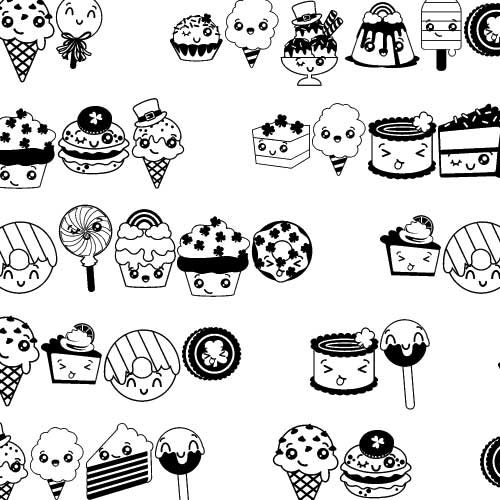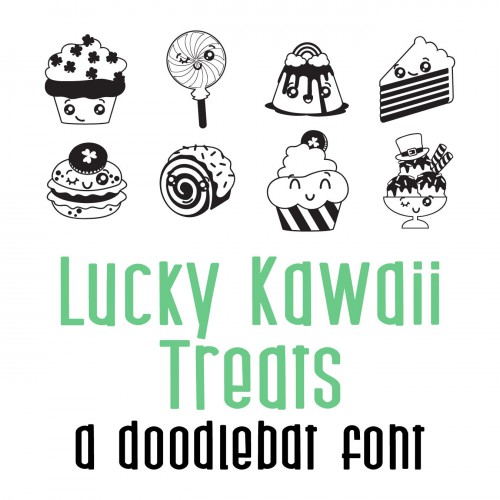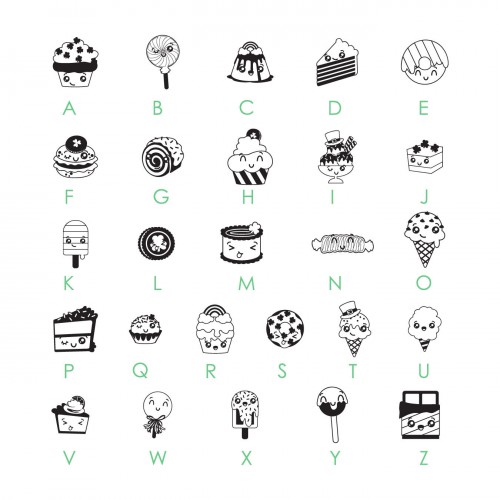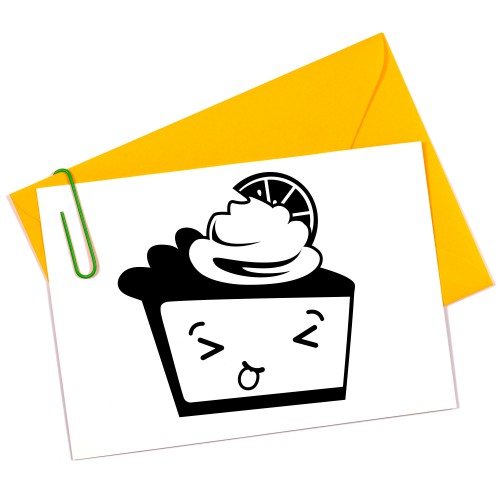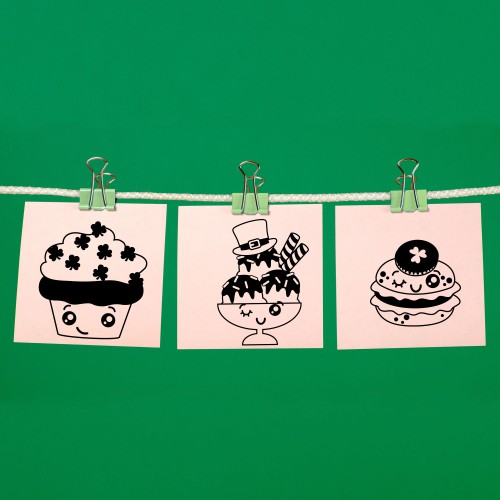
DB Lucky Kawaii - Treats - DB
This adorable doodlebat has 26 different Kawaii style foodie St. Patrick's Day images. Perfect for cards, crafts, parties, planner stickers, scrap book pages and more!